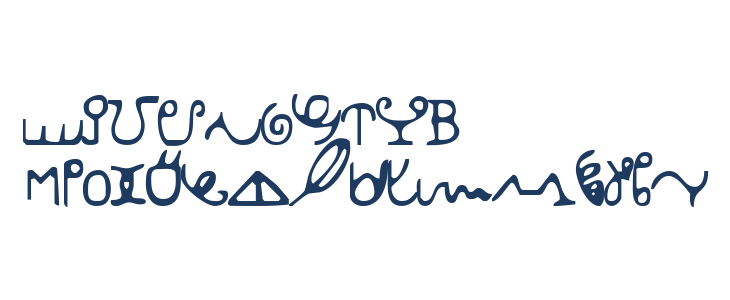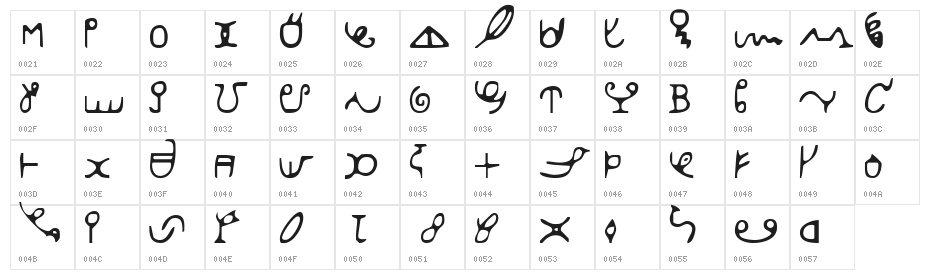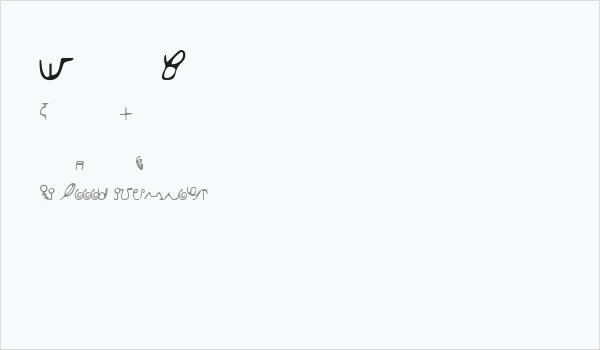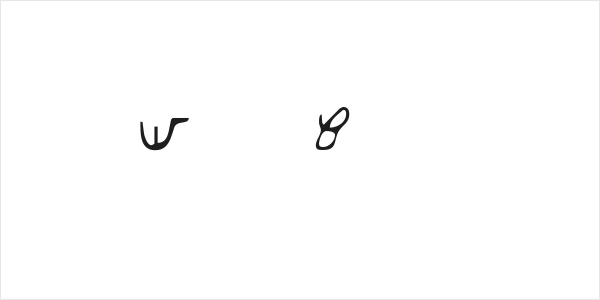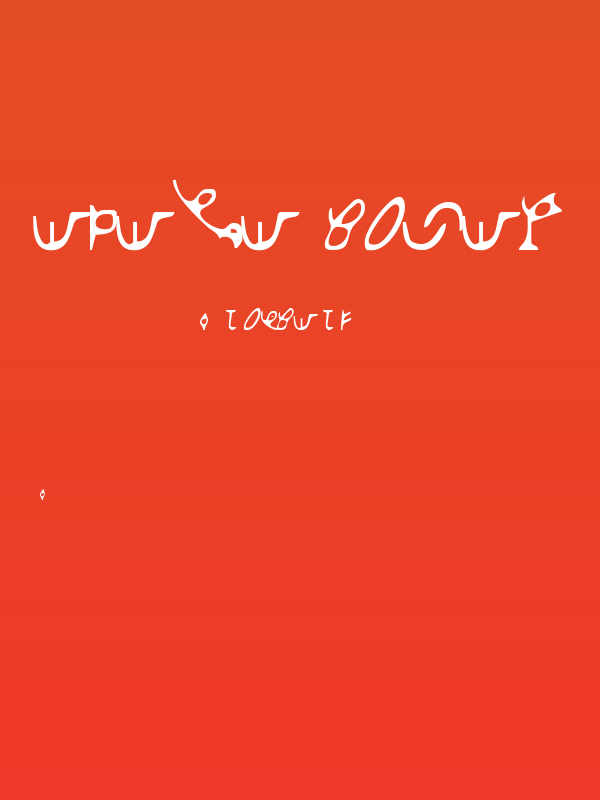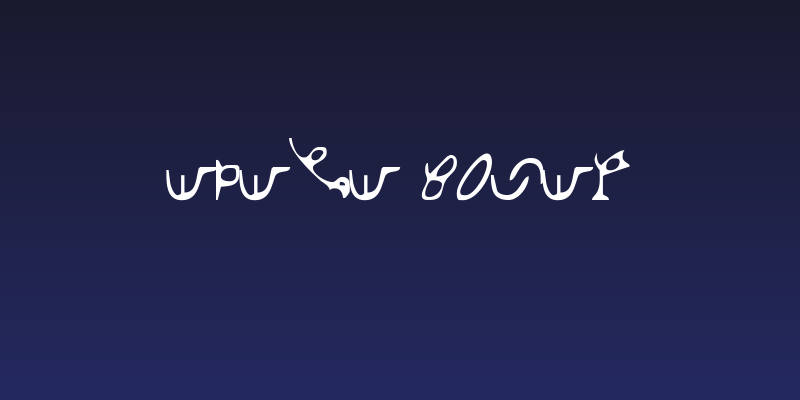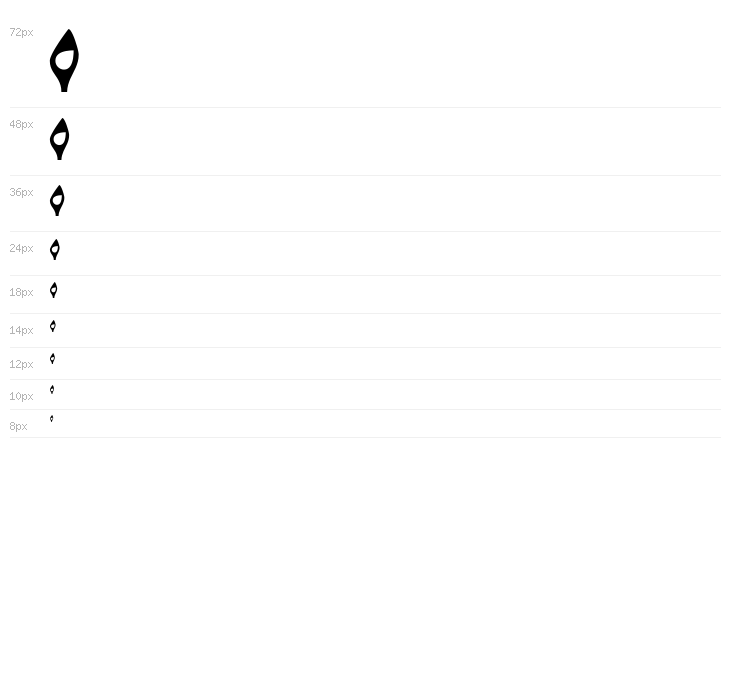
Afaka Roman Font
Afaka Roman Description
This script features a unique and decorative style, characterized by its flowing and interconnected strokes. The characters exhibit a high degree of curvature and fluidity, creating an artistic and almost calligraphic appearance. The script is visually engaging, with each character presenting a distinct and intricate design. The overall aesthetic is both exotic and captivating, making it stand out as a display typeface. The script's design elements suggest a cultural or historical influence, adding to its charm and appeal.
| Use Case | Logos, Artistic designs, Cultural projects |
| Proposed Projects | Ideal for cultural or historical projects, artistic designs, or decorative purposes where a unique and captivating script is desired. |